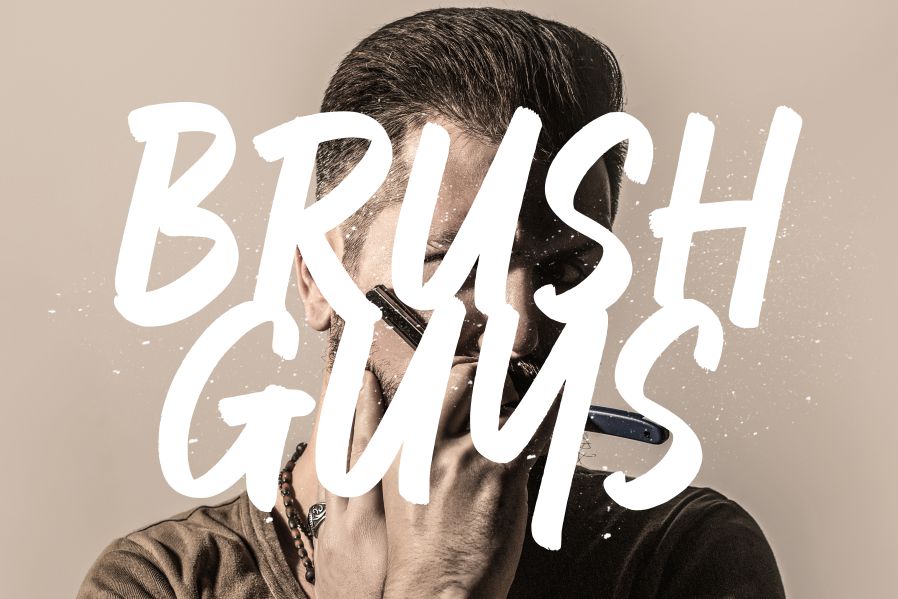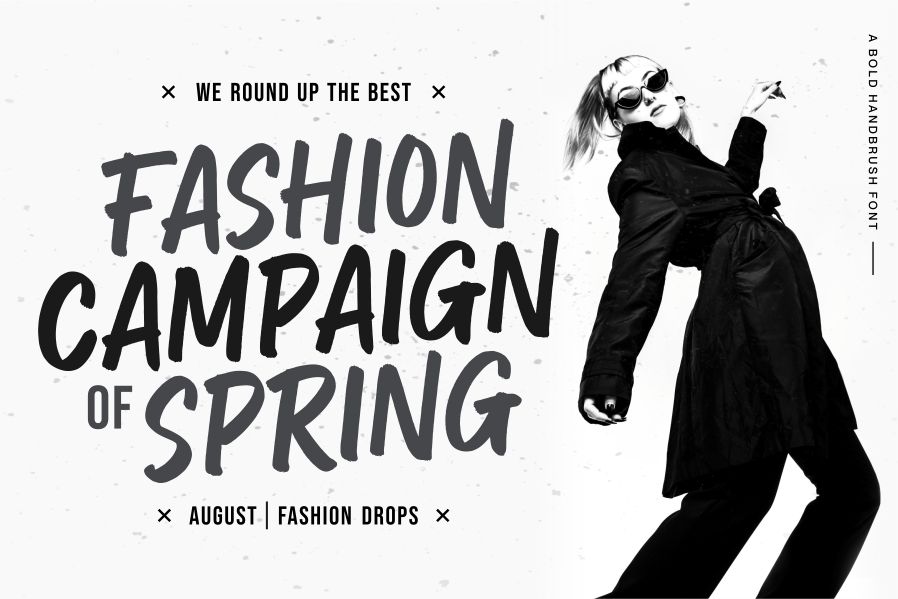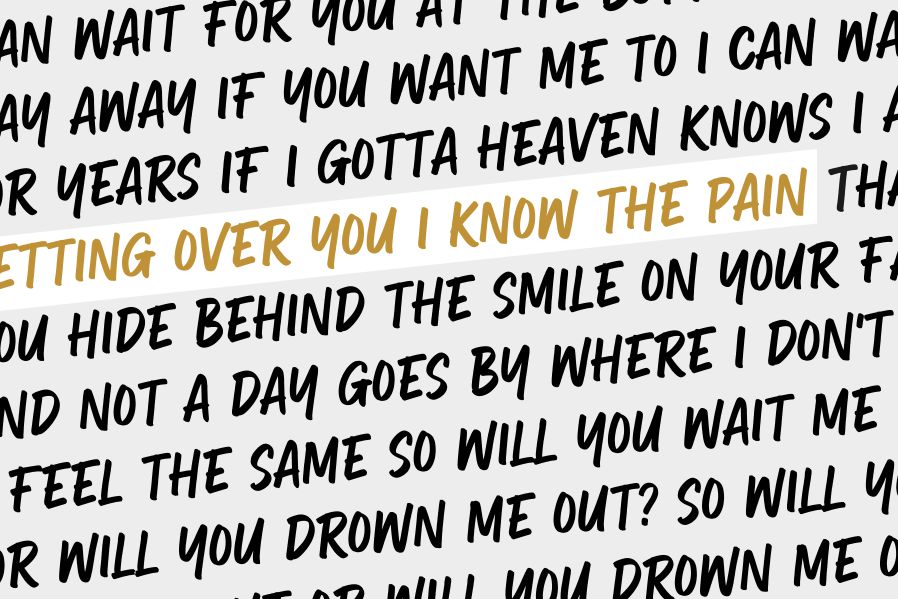
Westbum Font
Westbum Brush Font
This is a Bold Handbrush Font. Westbum is perfect for product packaging, branding project, megazine, social media, wedding, or just used to express words above the background. This font includes OTF&TTF&Woff, Westbum also multilingual support.